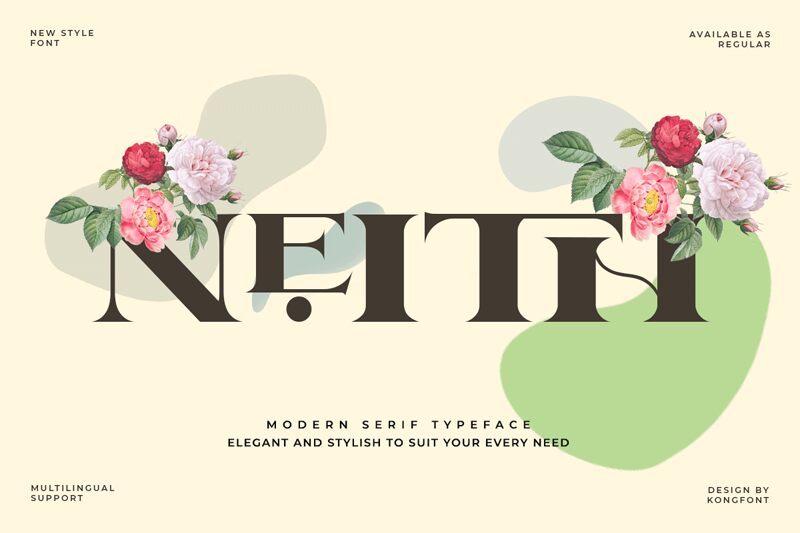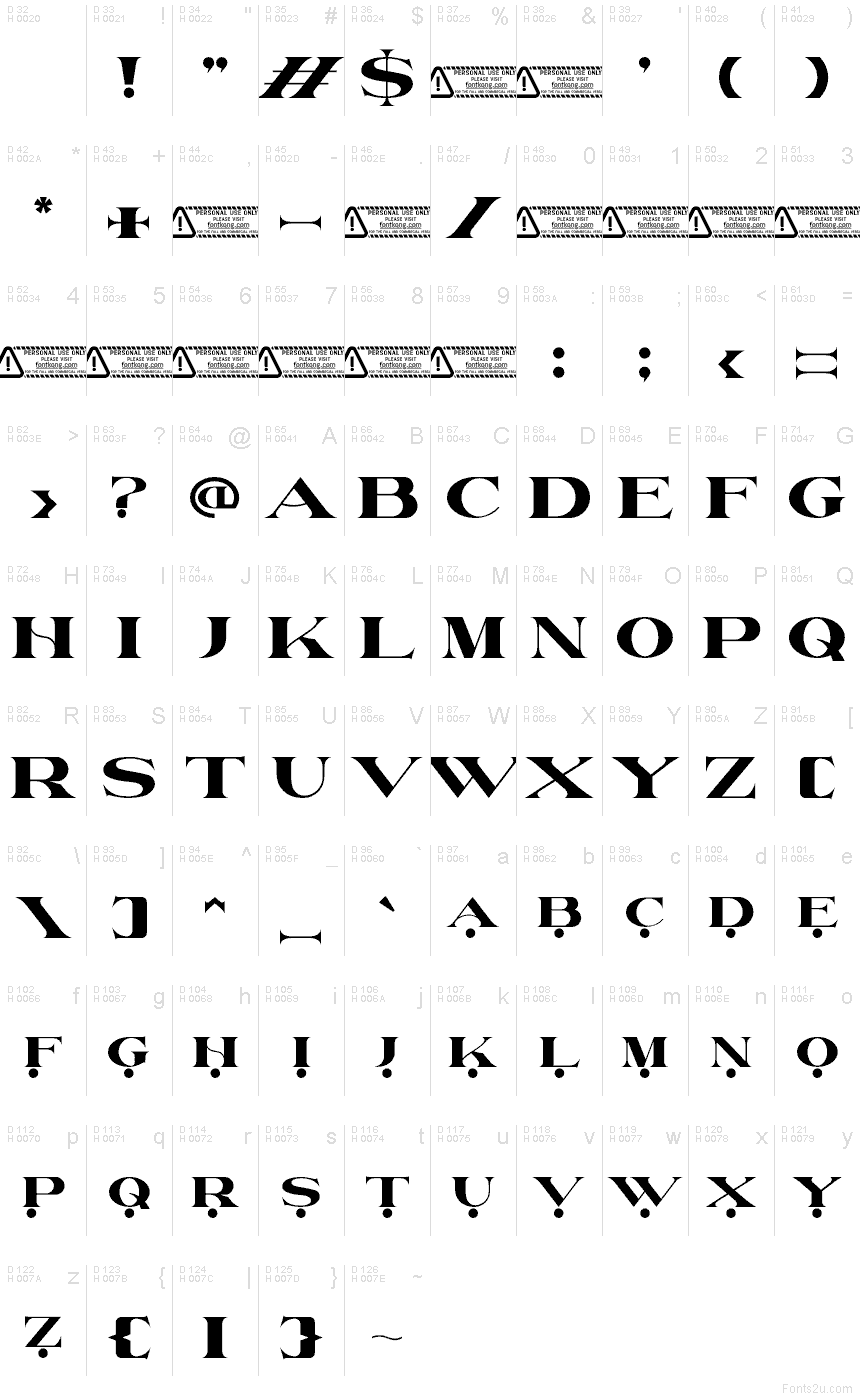
Neith font by Kong Font is a free serif typeface that hits with the weight of carved stone and the precision of a chisel. Wide, blocky verticals feel almost architectural, while the dagger-like serifs and circular dot-like accents along the baseline give the letters a ritual, almost hieroglyphic mood. Set big, Neith has a bold, statuesque presence that commands attention without losing its sharp, controlled rhythm.
Using Neith, you get a serif that thrives on drama—great for book covers, luxury packaging, album art, editorial titles, branding for fashion or beauty, and moody posters. This free font works beautifully when you let it breathe: use generous letterspacing and pair it with a light, simple sans serif for smaller supporting text so its sculpted forms can stay center stage.